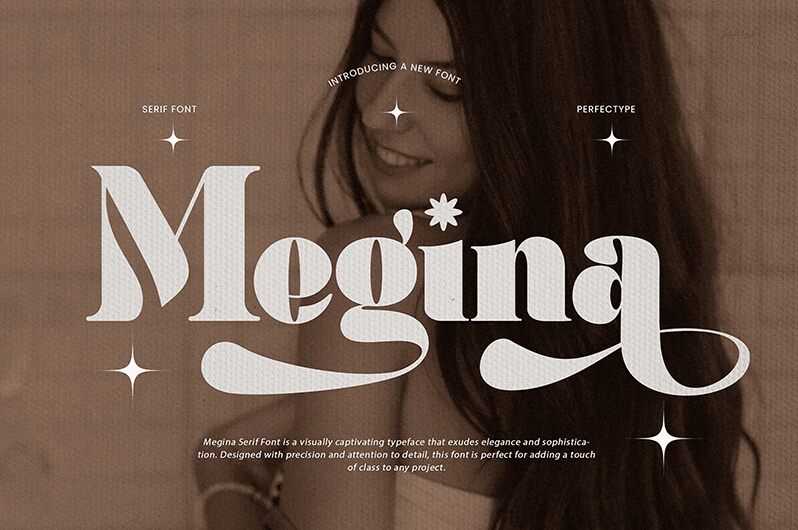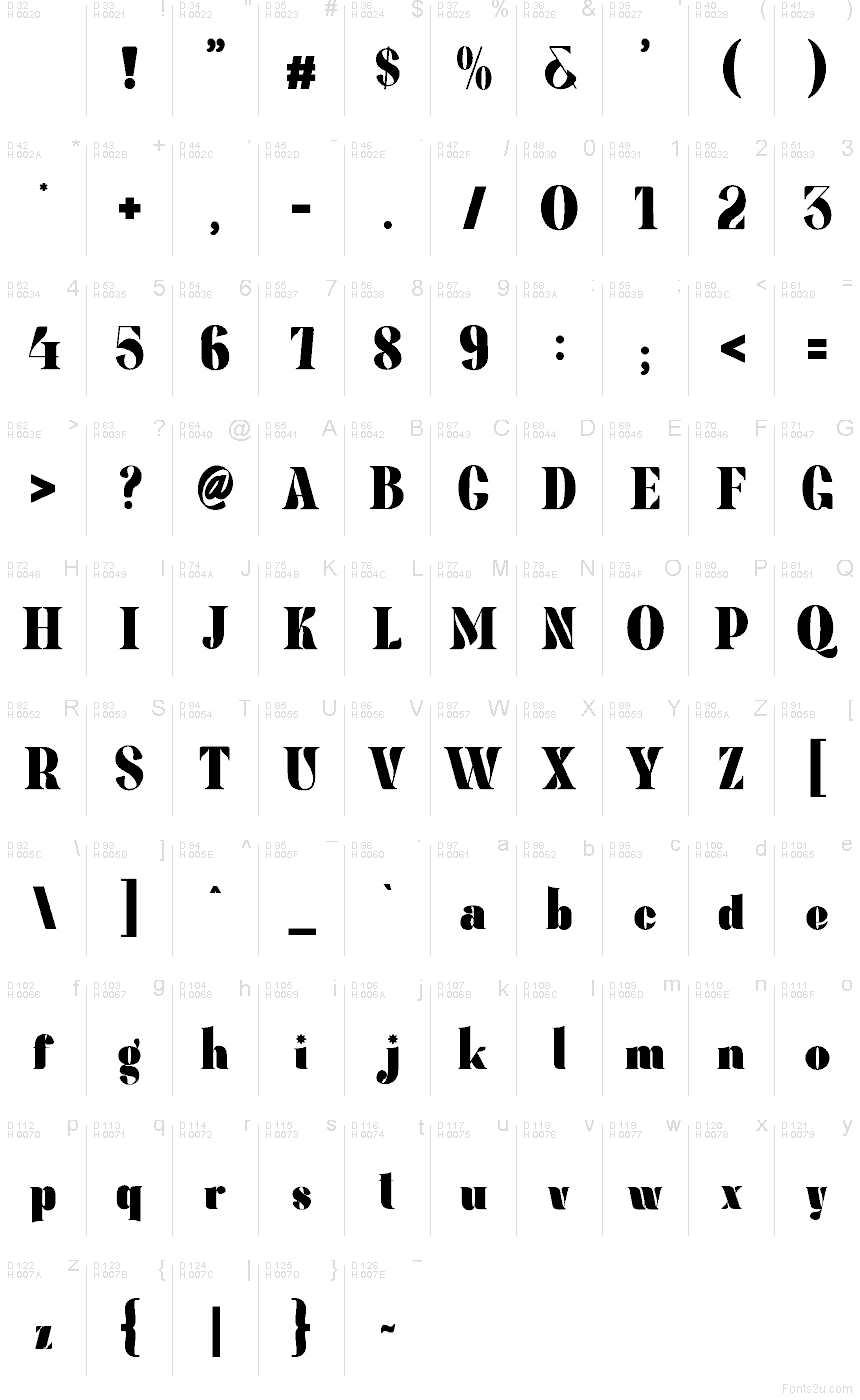
Megina
Megina font by Setyo Wati of Perfectype is a free retro display typeface with a bold, almost inky presence and playful sliced counters that feel like light cutting through velvet. Thick, sculpted curves bump up against sharp interior cuts, giving each letter a dramatic, poster-ready silhouette, while the quirky star asterisk adds a little editorial sparkle. It has that lush, 70s-inspired glamour without feeling dusty or overdone.
Using Megina, headlines instantly gain weight and attitude, making this free font a natural fit for branding, posters, packaging, album covers, event graphics, and social media title cards. Its dense forms thrive at large sizes where those sculpted shapes can really breathe. Pair Megina with a clean, neutral sans serif for body text to let its bold personality stay center stage without overwhelming your layout.